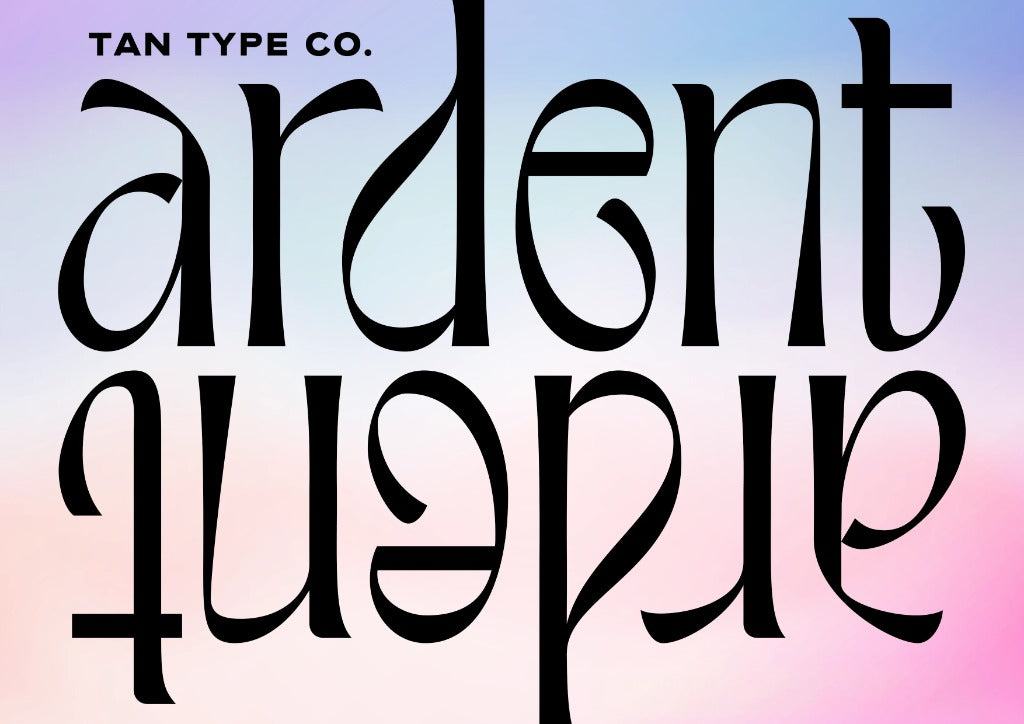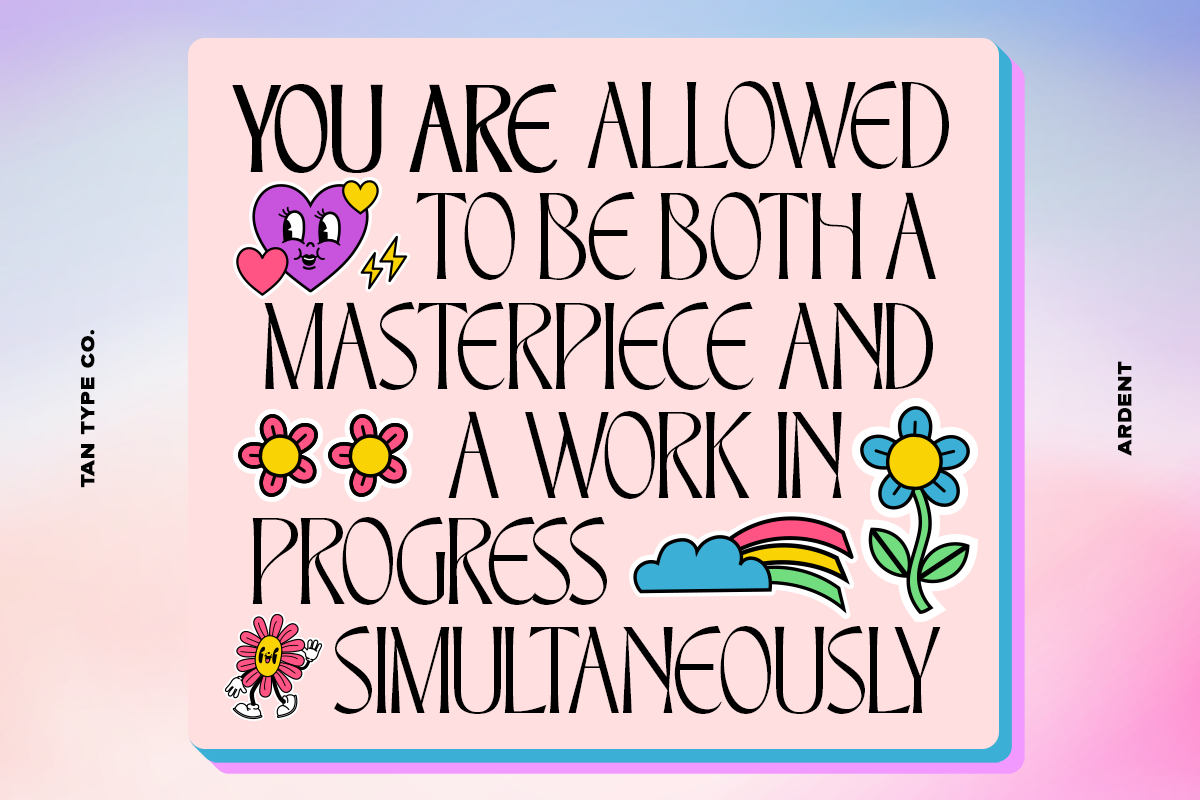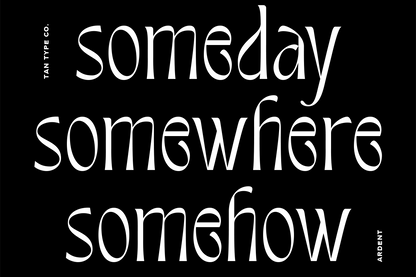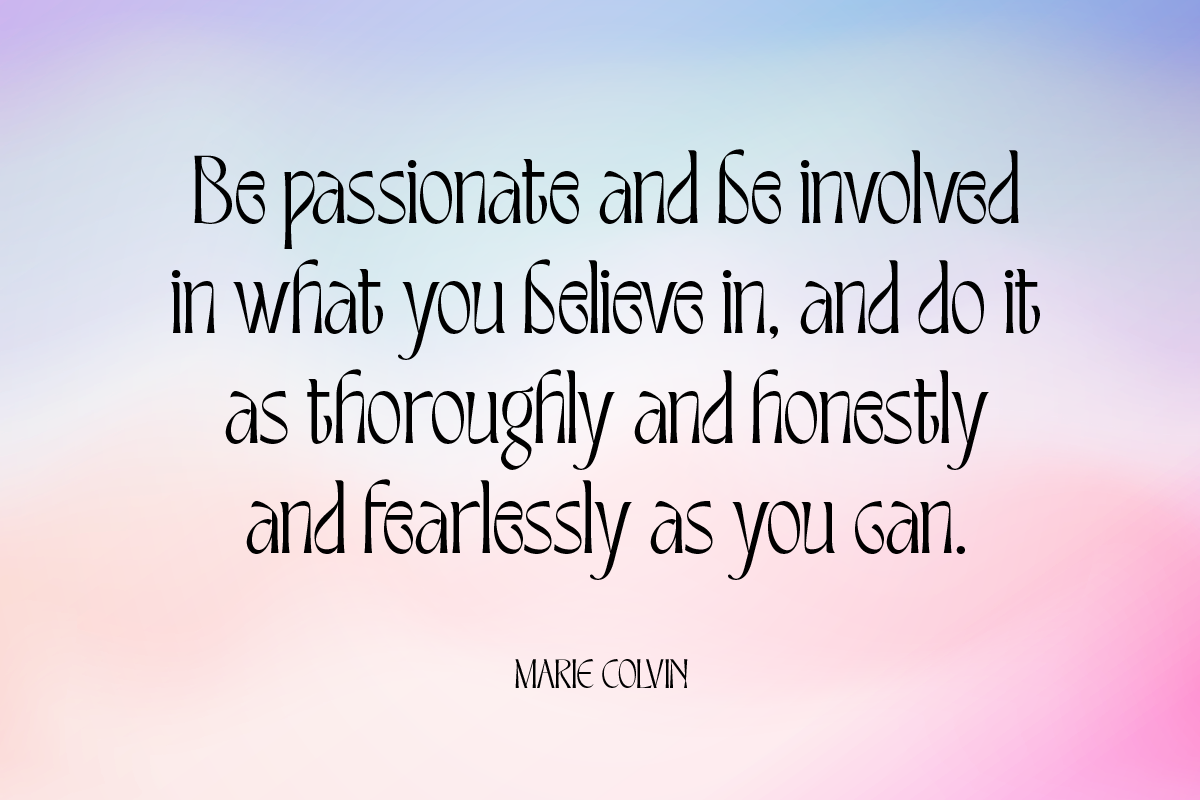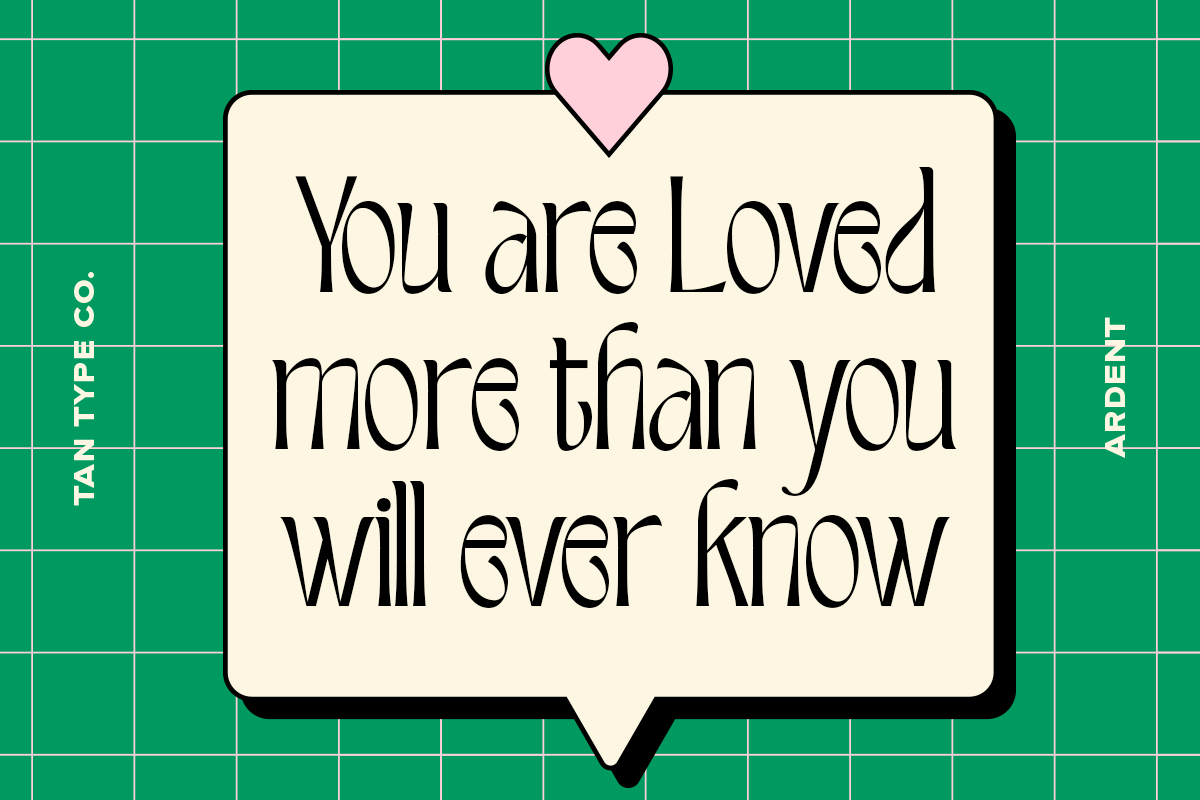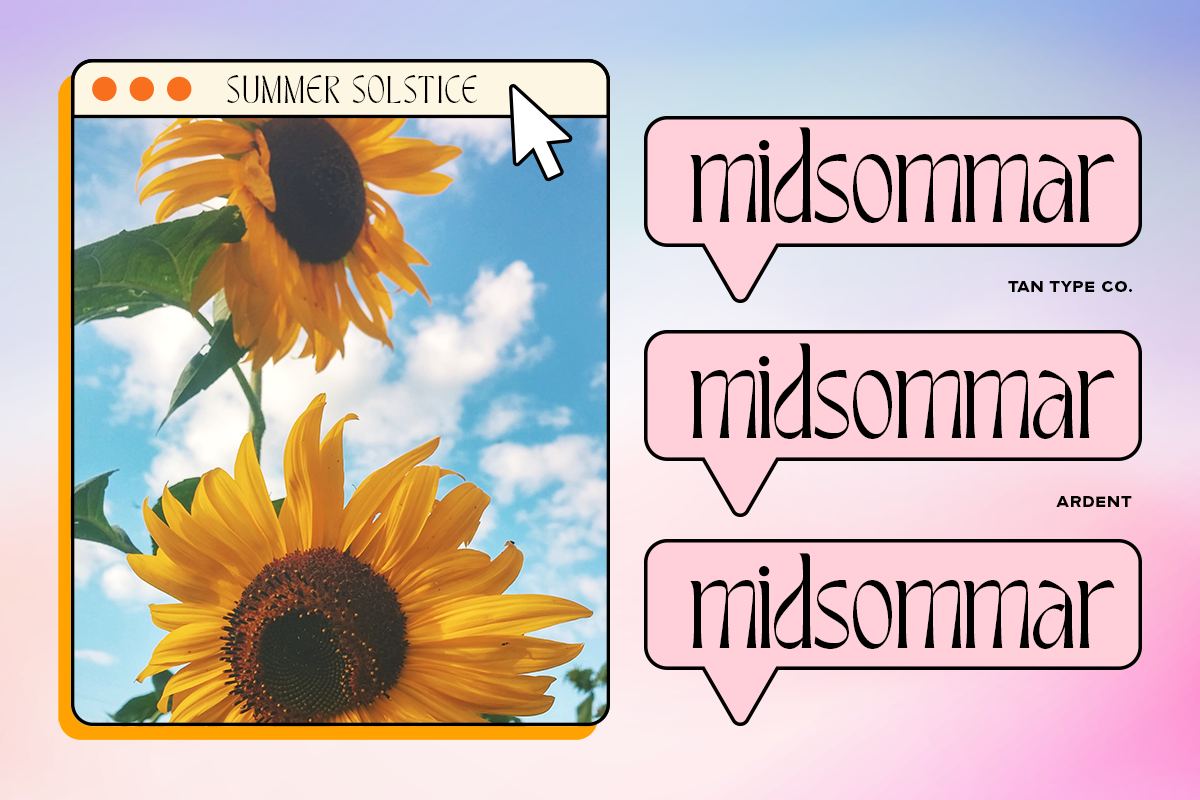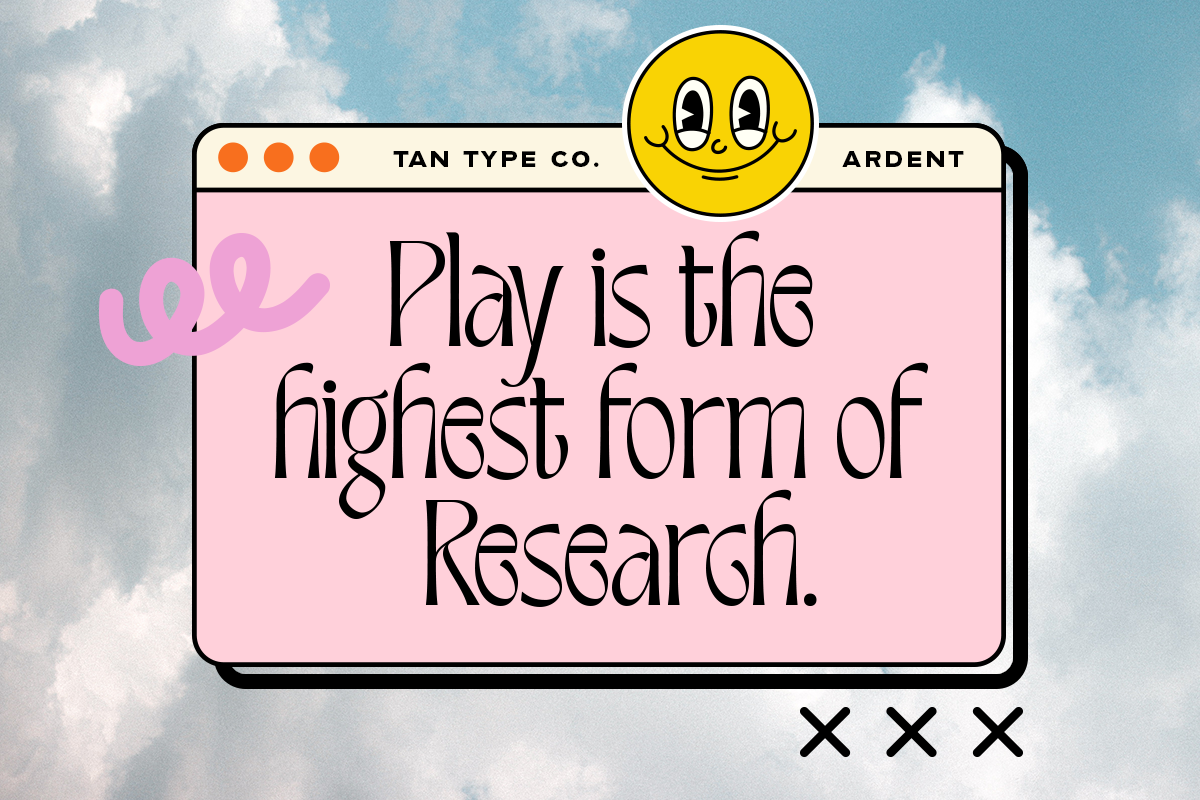
ARDENT is a striking and unconventional serif typeface with sculptural curves and bold vertical tension. Its dramatic proportions and unexpected letterforms fuse elegance with experimentation, offering a highly expressive and modern take on classic serif design.